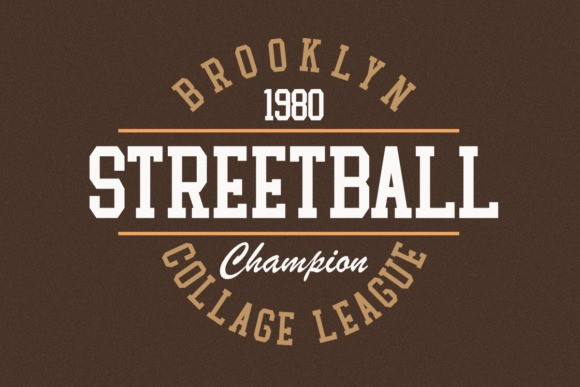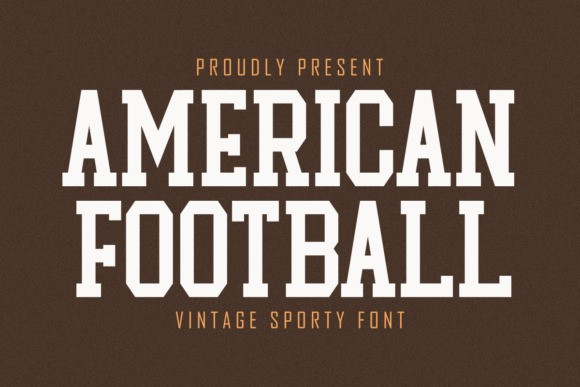
American Football Font
American Football Font is a vintage sporty font with bold slab serif shapes and strong angular details. Perfect for sports branding, posters, team logos, and apparel design, this font brings a competitive and energetic look to your designs.
Whether you are working on headlines or merchandise, American Football will make your project stand out. Add it to your creative toolbox and enjoy a truly vintage sporty vibe!